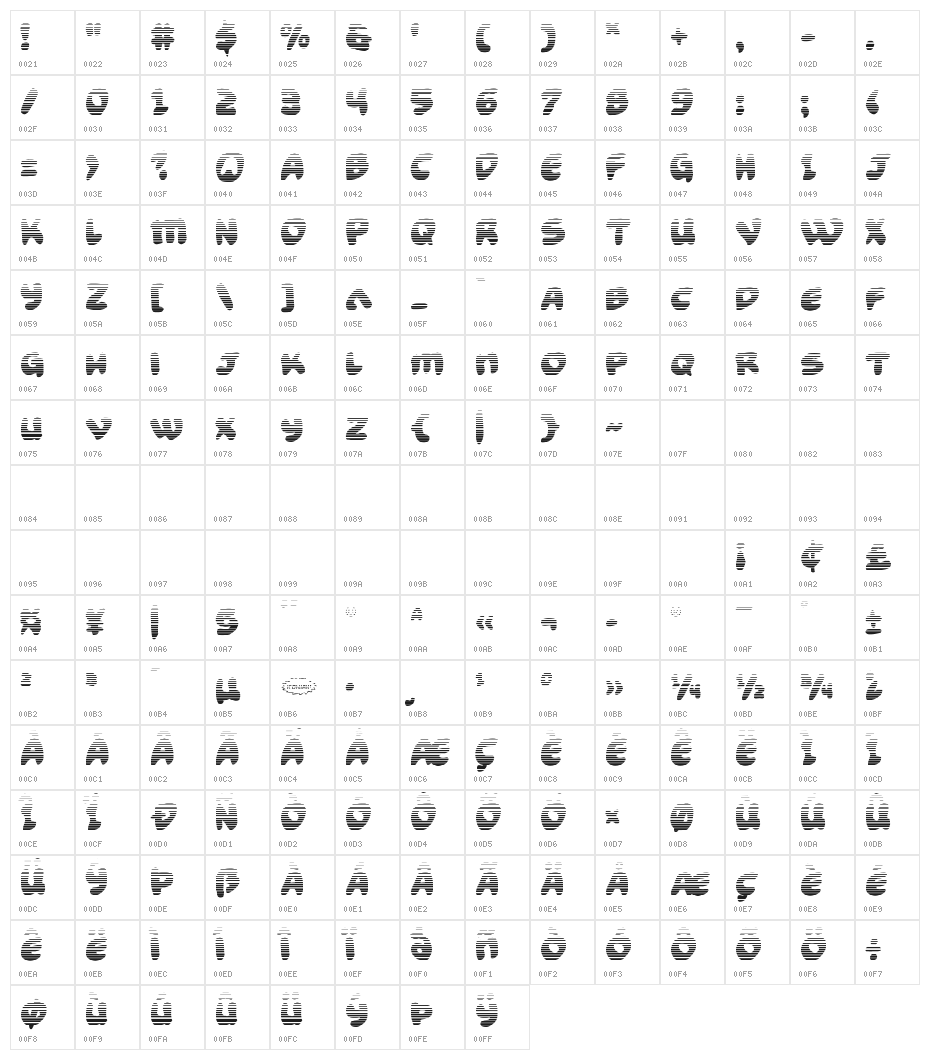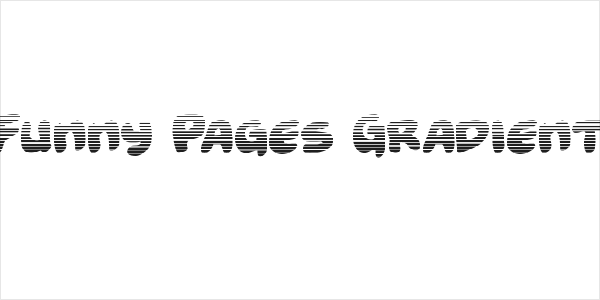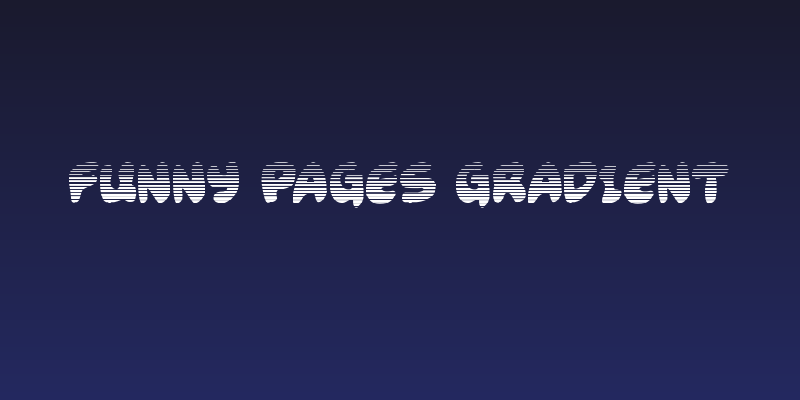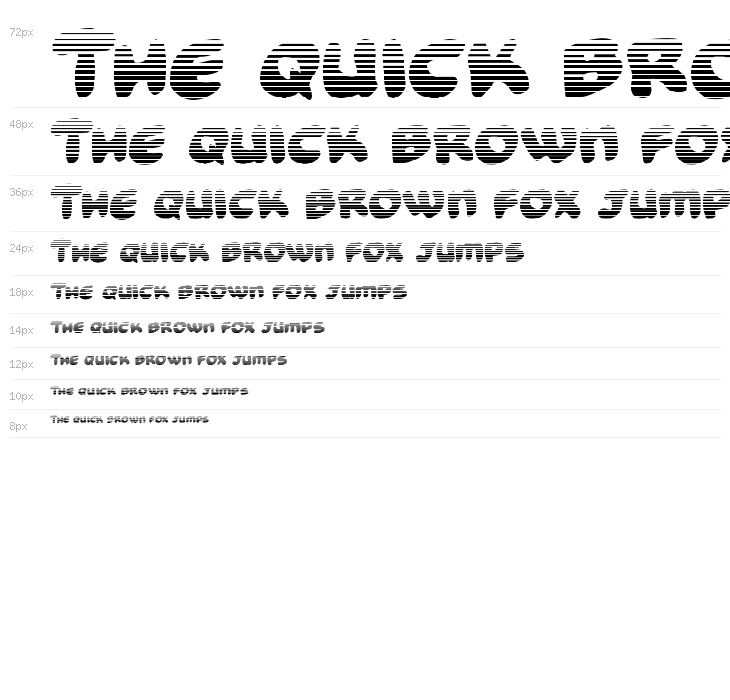
Funny Pages Gradient Font
Funny Pages Gradient Description
This font features a playful, bold design with a unique striped pattern running horizontally across each character. The letters are rounded and have a cartoonish, whimsical feel, making them stand out with a sense of fun and creativity. The consistent stripe pattern adds a dynamic visual texture, while the boldness of the characters ensures readability. This font is perfect for projects that require a lively and engaging aesthetic, such as comic books, children's materials, or playful branding. The combination of boldness and decorative stripes gives it a distinctive appearance that captures attention.
| Overall Style | Playful, Whimsical |
| Proposed Projects | Ideal for comic books, children's materials, playful branding, and creative posters. |